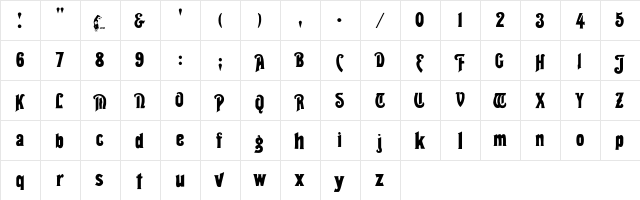
Sivlia Regular
Design Context for Sivlia Typeface
Sivlia is a composed and adaptable typeface that performs quietly and consistently across a wide range of design contexts.